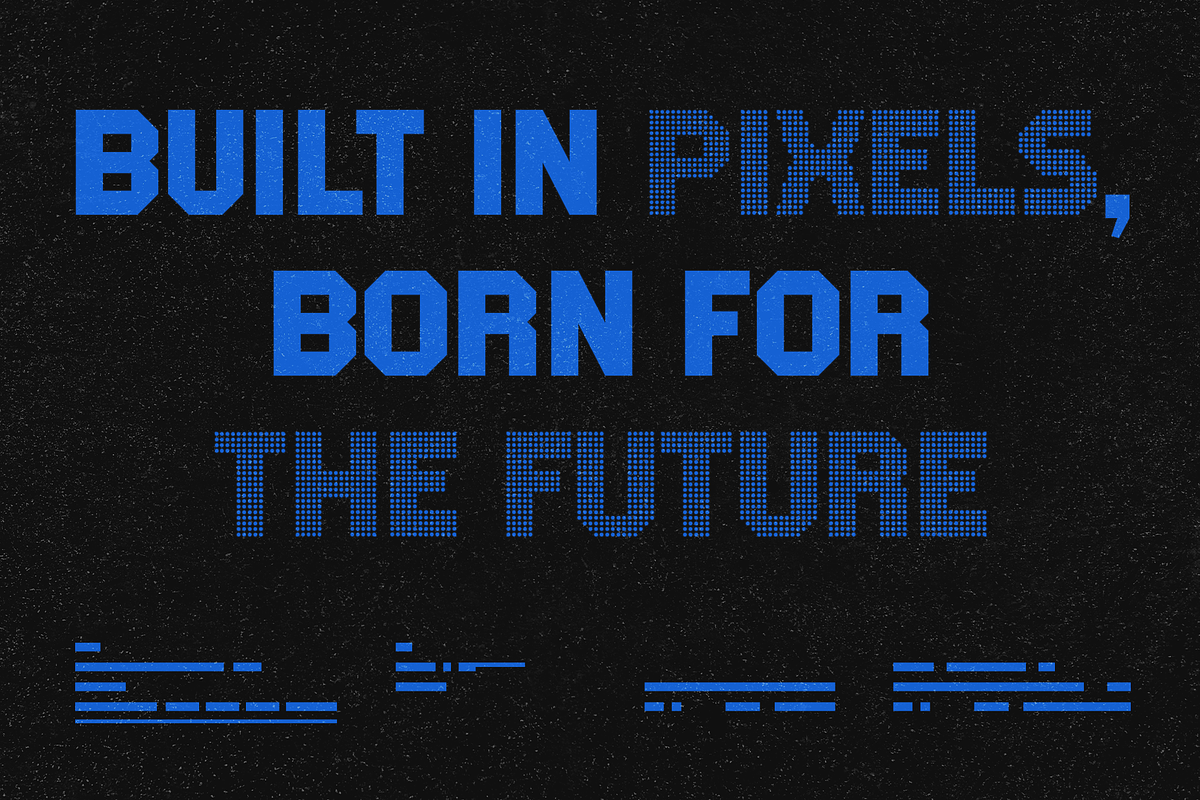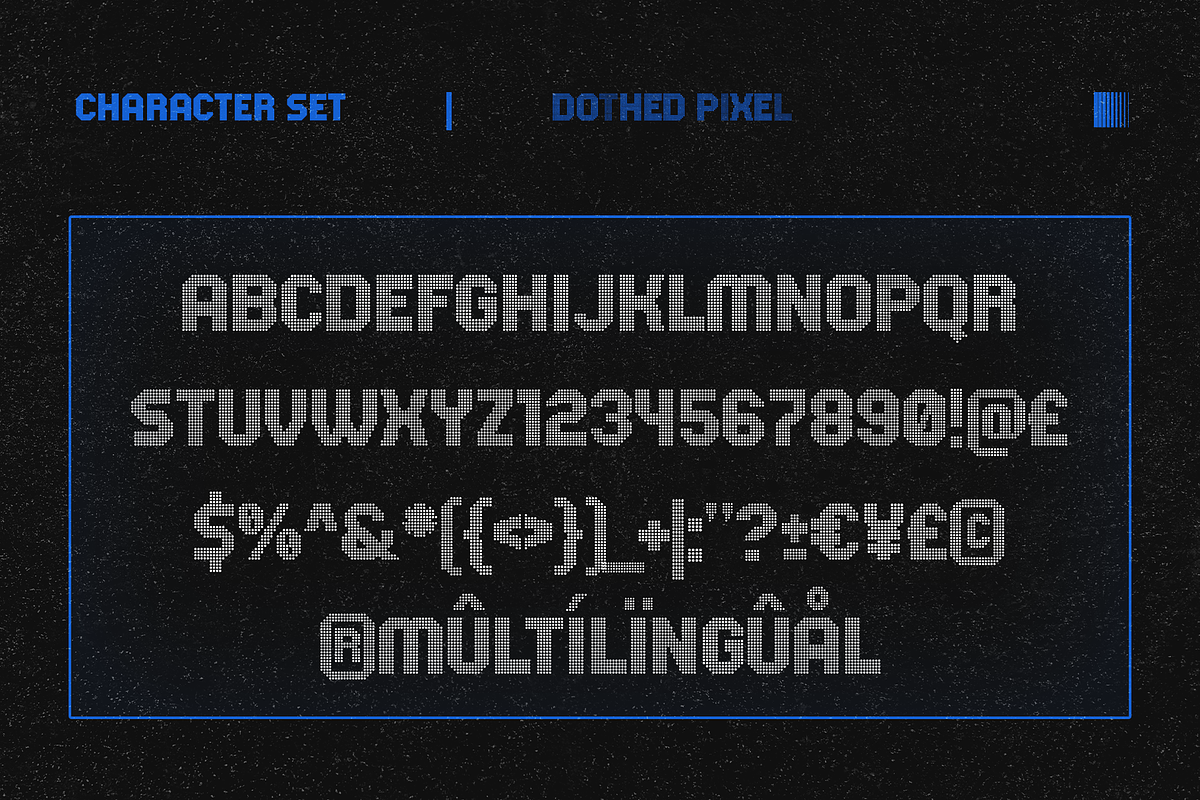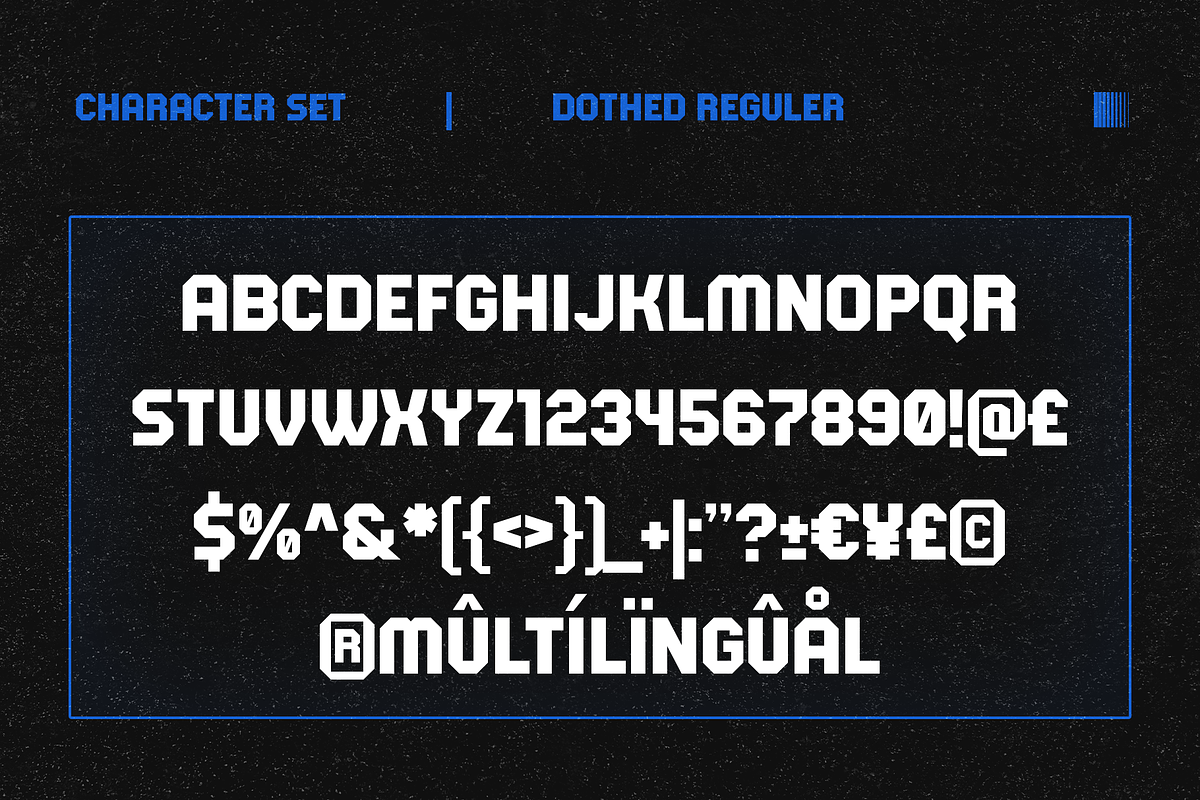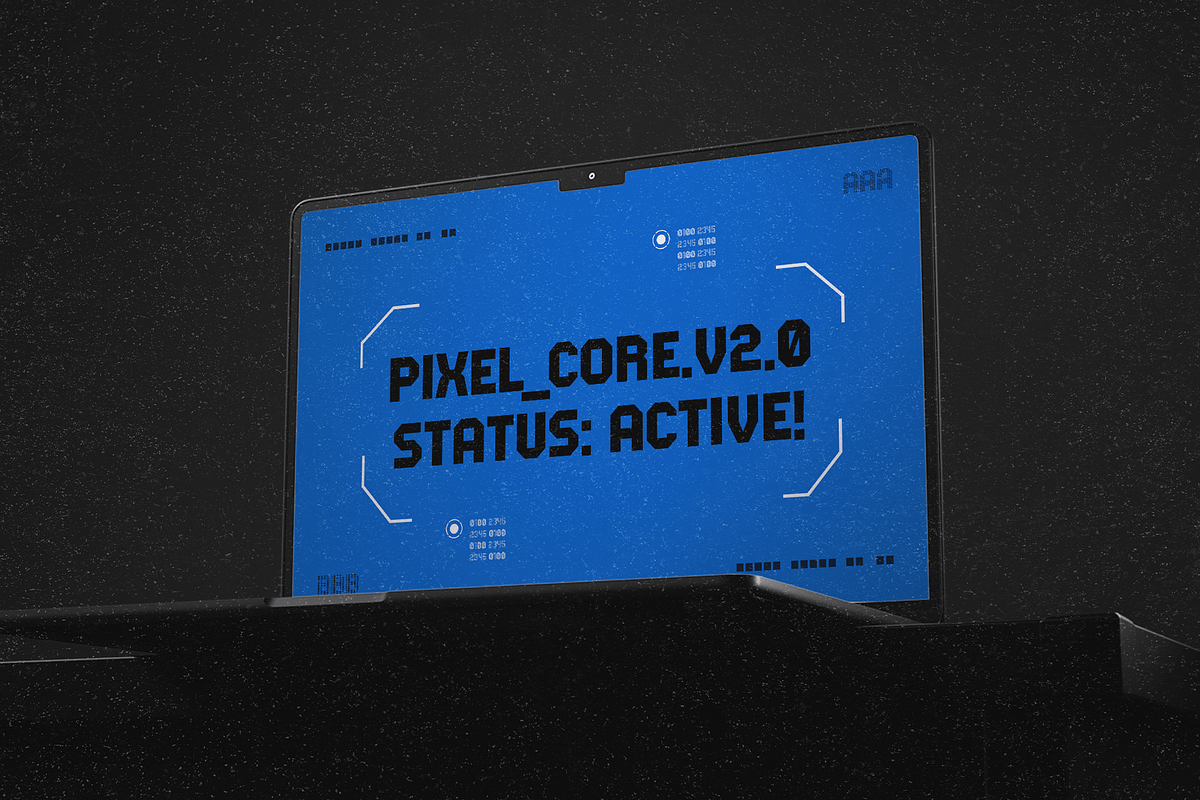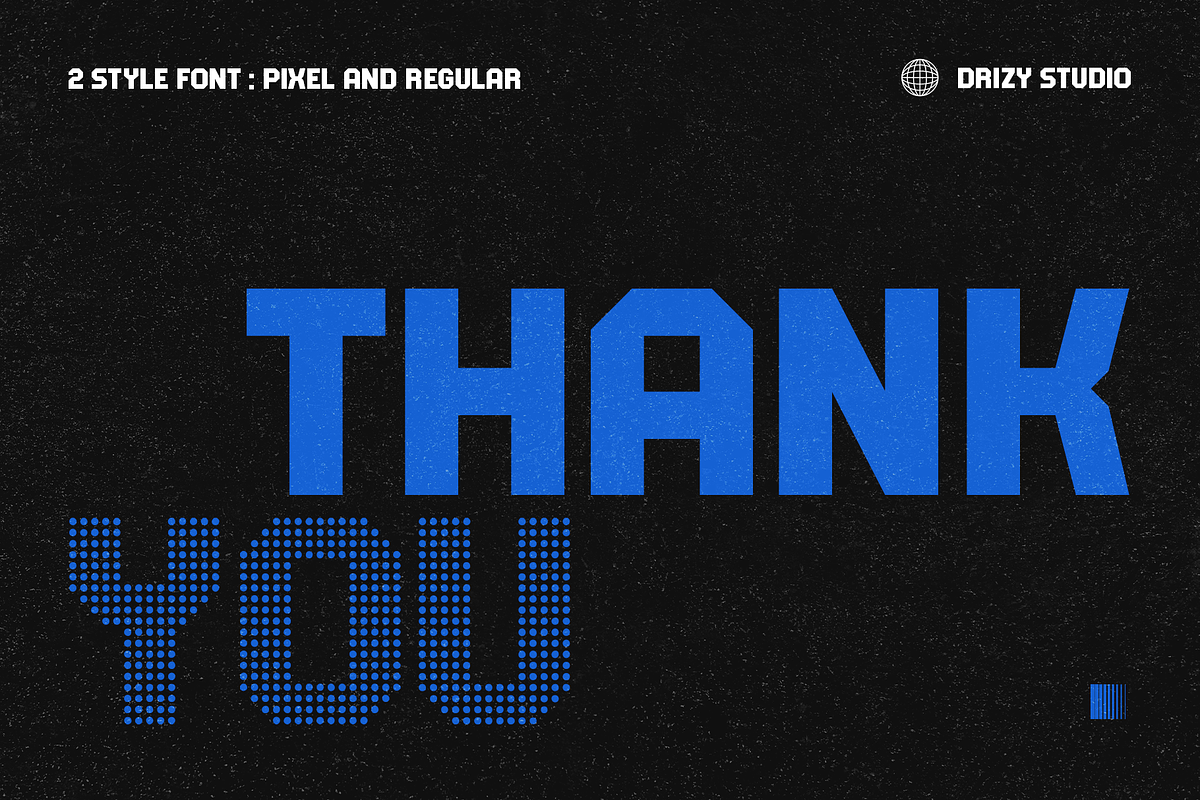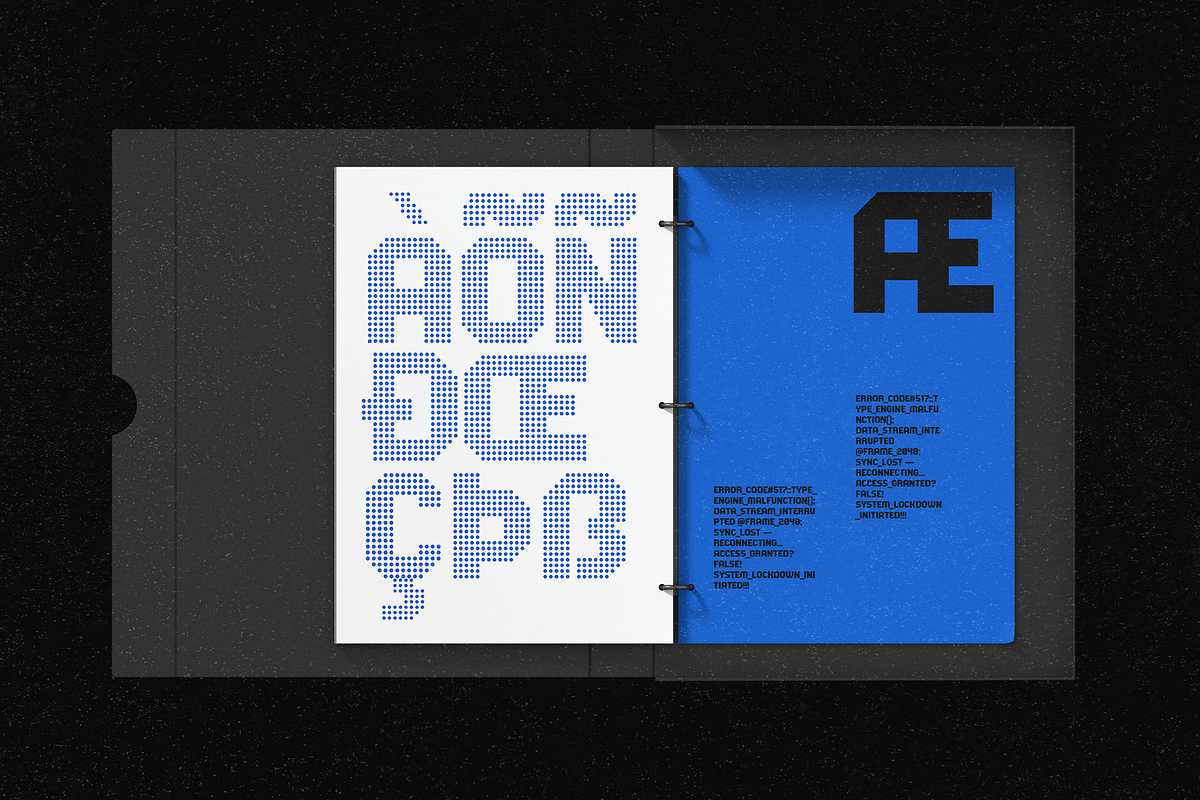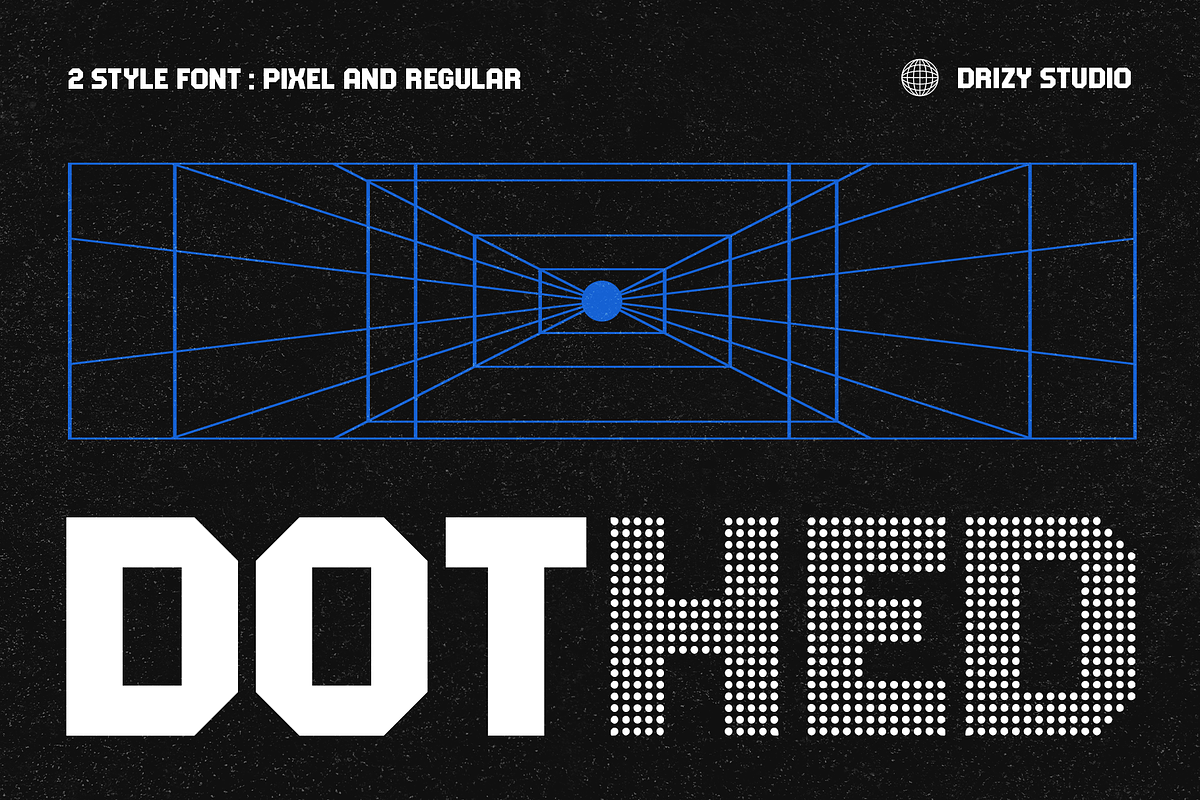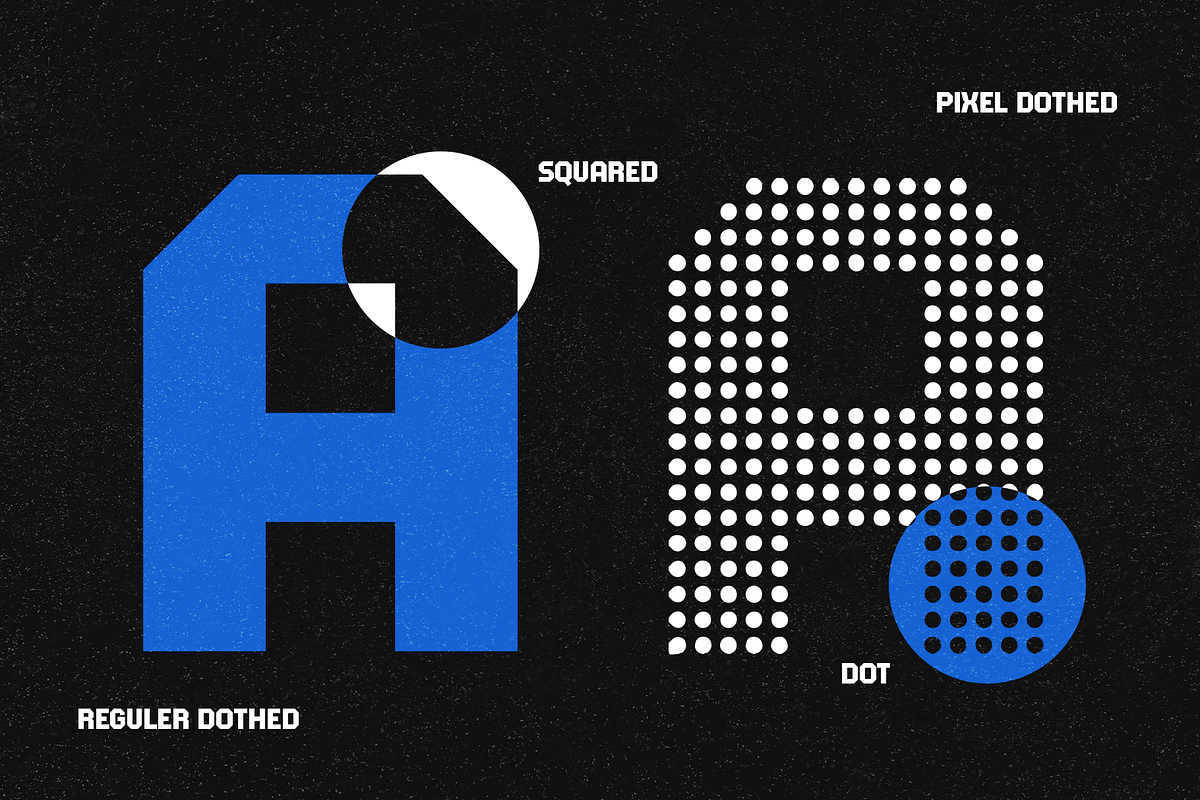
Dothed – Regular & Pixel Font
Dothed – 2 Styled Font (Regular & Pixel)
Dothed is a unique dual-style font featuring both Regular and Pixel versions in one family. It blends modern simplicity with retro digital charm, making it perfect for designs that need flexibility and character. Use the Regular style for clean readability and switch to the Pixel style for playful, tech-inspired accents. Ideal for logos, posters, games, branding, and digital projects.
Elevate and explore the design possibilities with this Bold Ticker Font!